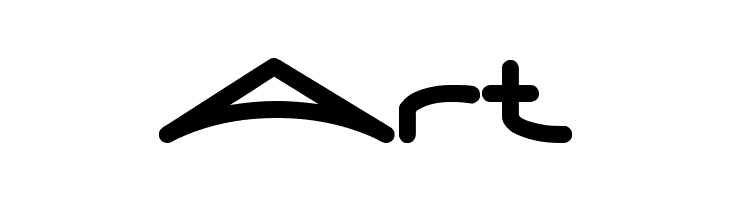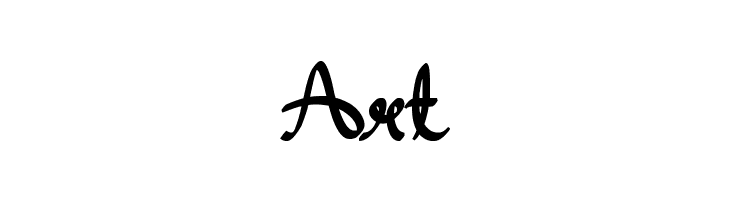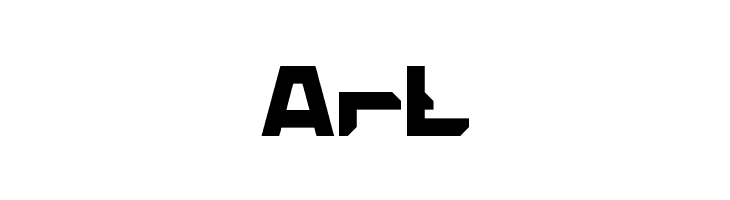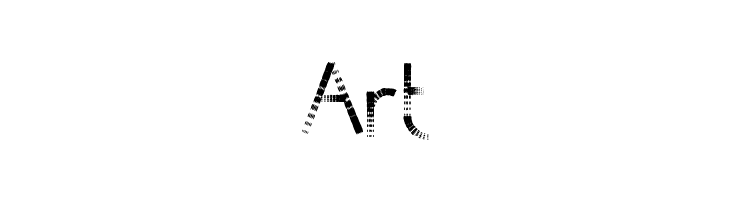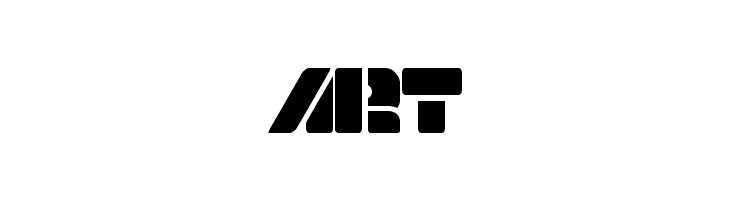
A dynamic, brush-style font with sweeping curves and sharp edges.
A futuristic, geometric font with bold, angular shapes.
A futuristic, sleek font with elongated, geometric letterforms.
A bold, dynamic script font with a strong, flowing style.
A decorative font with flowing, butterfly-inspired strokes and bold, artistic flair.
A whimsical, artistic font with flowing, interconnected strokes and a handwritten appearance.
A playful, dotted font with a dynamic and modern aesthetic.
A bold, geometric font with a futuristic and industrial aesthetic.